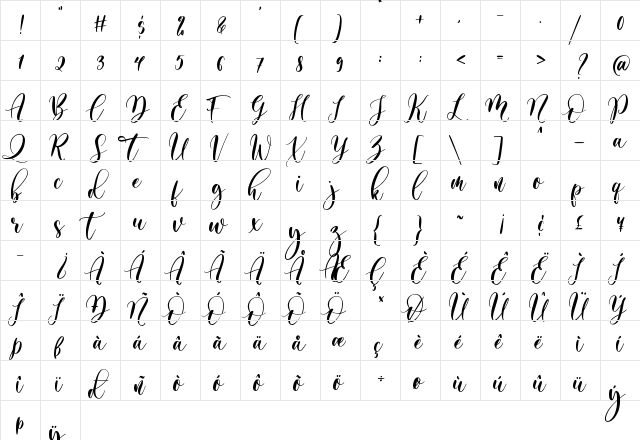
almond whisp Regular
| Designer | Muhamad Yusron Billah |
Design Context for almond whisp Typeface
almond whisp is a composed and adaptable typeface that performs quietly and consistently across a wide range of design contexts.